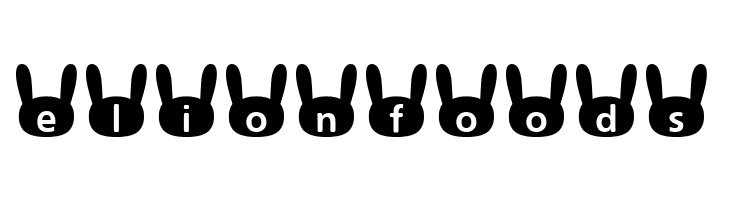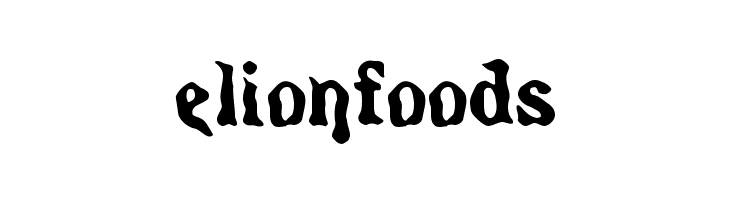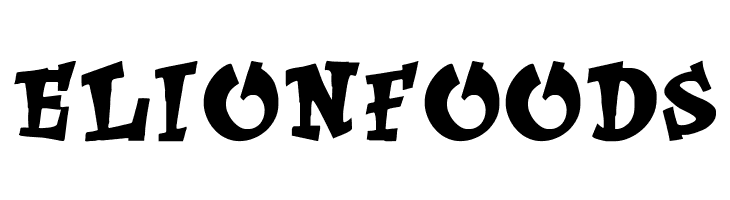
A playful, handwritten font with bold, rounded characters.
A bold, slab serif font with strong, well-defined characters.
A bold, wavy, and expressive font with a playful character.
A whimsical, cartoon-like font with playful characters and decorative elements.
A bold, playful font with angular, dynamic characters.
A playful font with characters enclosed in eye-shaped ovals, offering a whimsical and decorative style.